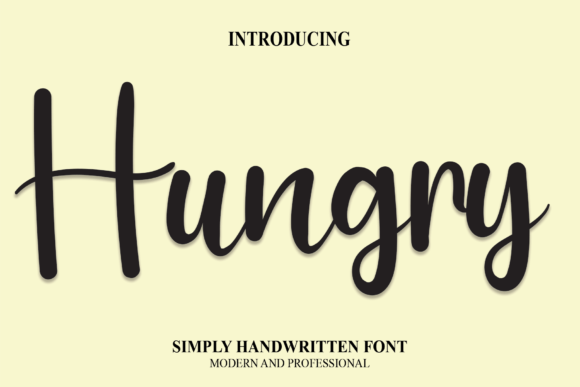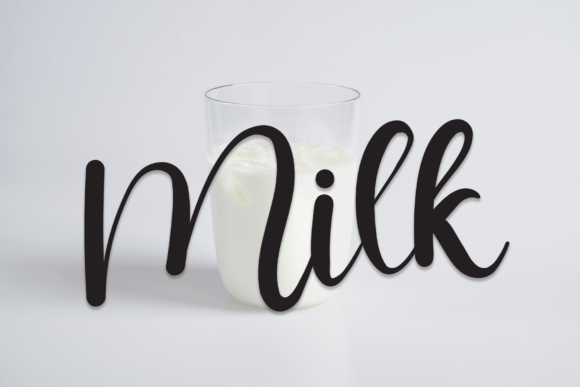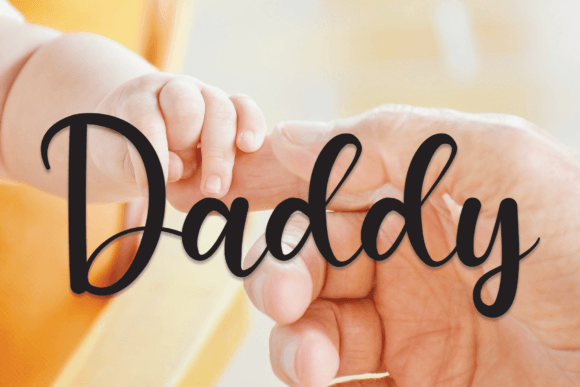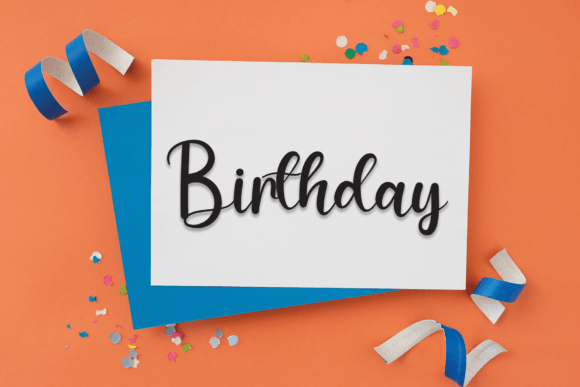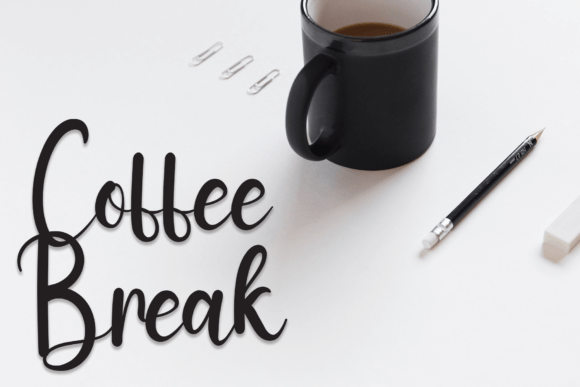
Hungry Font
About Hungry Font
This is a fun and friendly handwritten font. Whether you’re using it for crafts, digital design, presentations, or creating greeting cards, this font has the potential to become your favorite font, whatever the occasion!